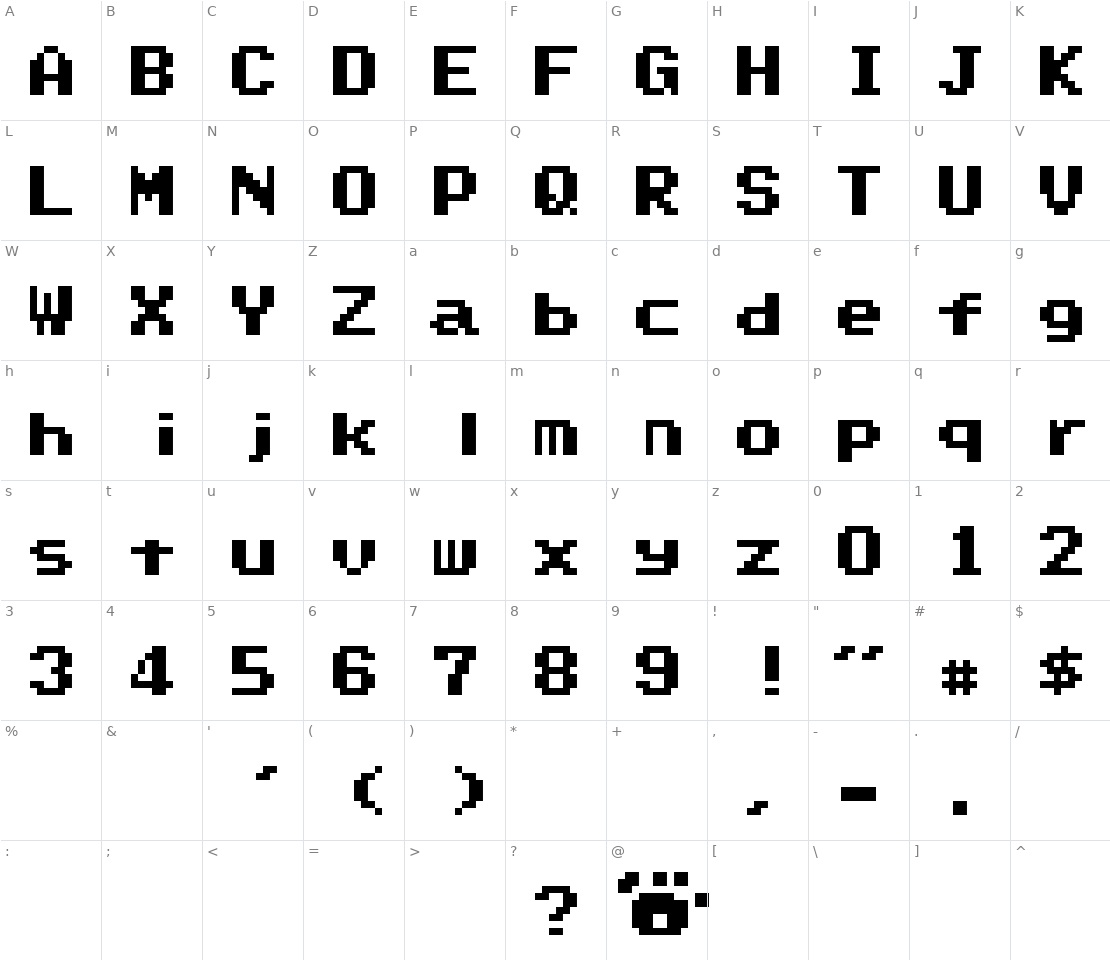
Super Mario World Text Box
Super Mario World Text Box recreates the chunky, monospaced pixel lettering from the dialogue boxes in Nintendo's Super Mario World, right down to the blocky proportions and bold weight. Made by myname5749, it's a faithful bitmap recreation that works for retro gaming projects, fan art, and nostalgic UI mockups. Keep it at sizes where the pixel grid stays crisp.